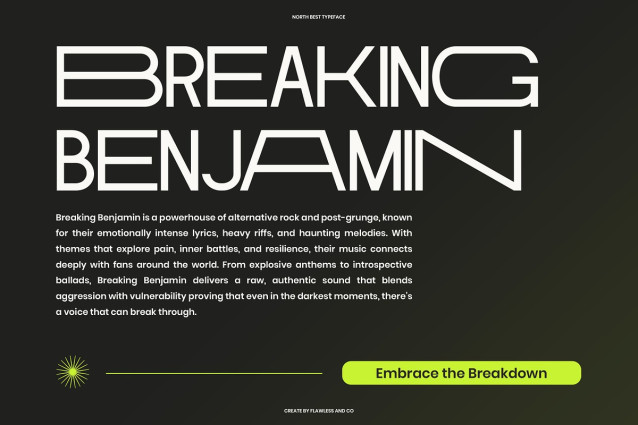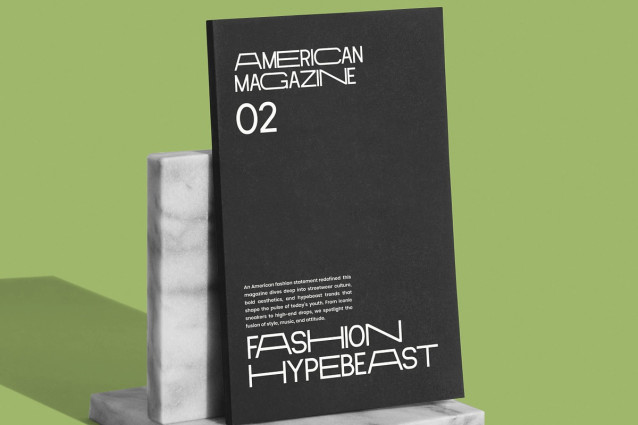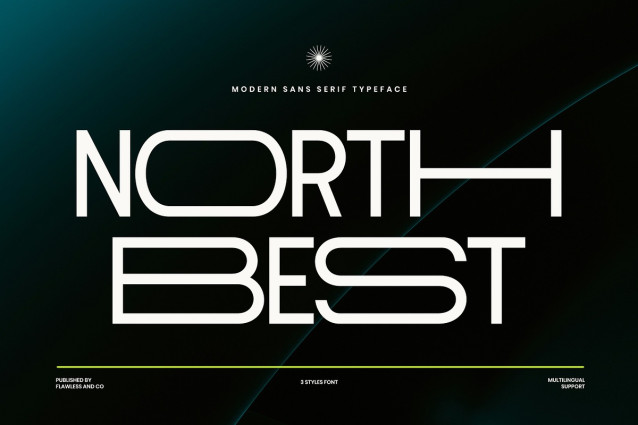
North Best Font
North Best Font is a modern sans serif font that blends minimalism with bold futuristic style. Designed with clean lines, geometric shapes, and sleek proportions, it’s the perfect choice for projects that demand sophistication and modern elegance. With its versatile design, Northbest works seamlessly across branding, editorial layouts, logos, fashion projects, posters, and digital interfaces. Available in 3 unique styles with multilingual support, Northbest provides creative freedom while maintaining a strong, professional aesthetic. Whether you’re creating striking headlines or refined branding, this typeface delivers impact with timeless modernity.